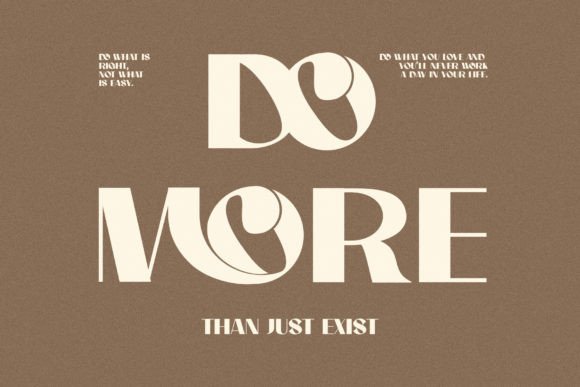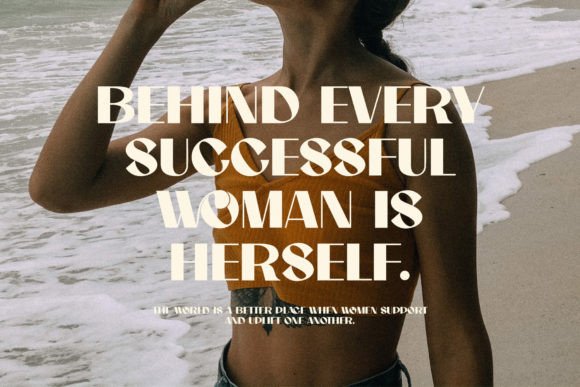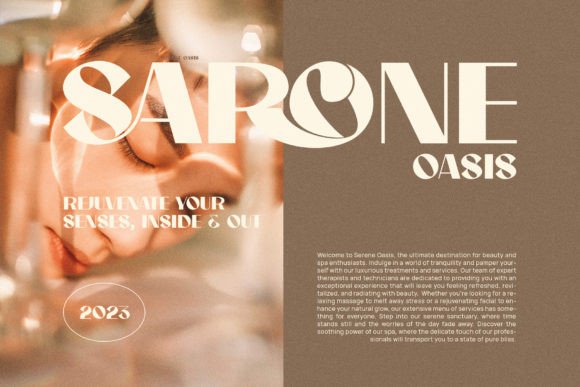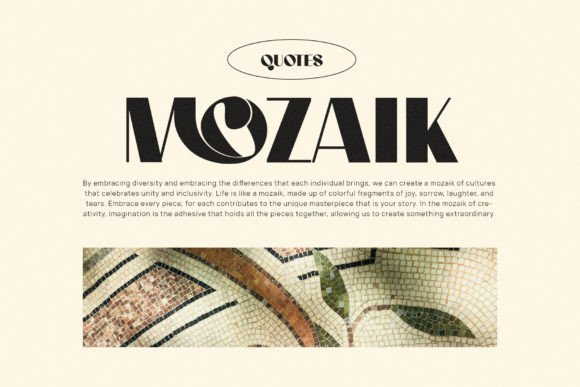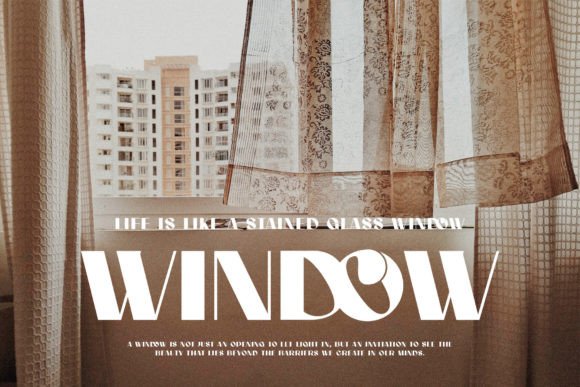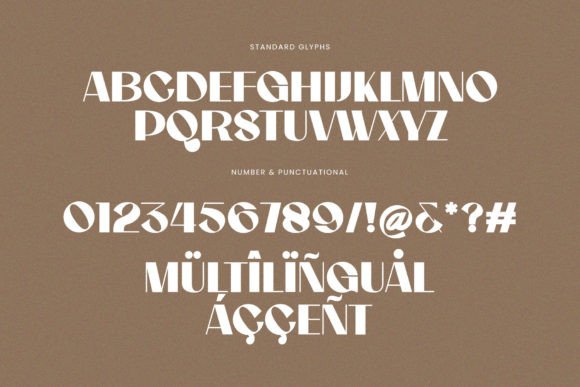
Introduction to Qawos Font Font
Fonts play a crucial role in design, and the Qawos Font font is a typeface that brings both character and versatility to any project. Whether you’re working on a branding project, a website, or a print design, the Qawos Font font offers a unique style that can elevate your work.
Elegant serif typeface combined with a classy and modern style.
This type of font is very suitable for your various needs such as branding projects, logos, wedding designs, social media posts, advertisements, product packaging, product designs, labels, photography, watermarks, invitations, stationery, and any project, created with high level of readability This font is PUA encoded which means you can access all of the amazing glyphs and ligatures with ease.
The Qawos Font font is more than just a typeface – it’s a design tool that helps you communicate your message with style and clarity. Its unique character set and versatile design make it suitable for a wide range of applications, from elegant invitations to bold headlines.
With its carefully crafted letterforms and balanced proportions, the Qawos Font font ensures readability and visual appeal across all mediums.
The Qawos Font font stands out with its unique design, exceptional readability, and versatility across various design applications.